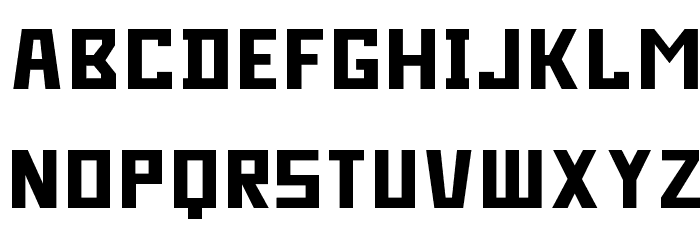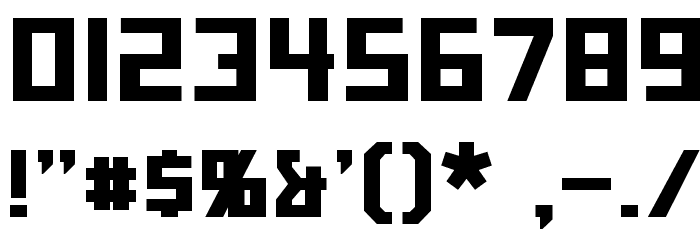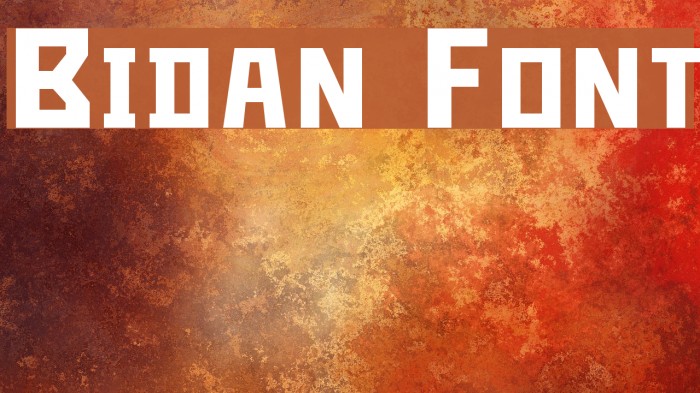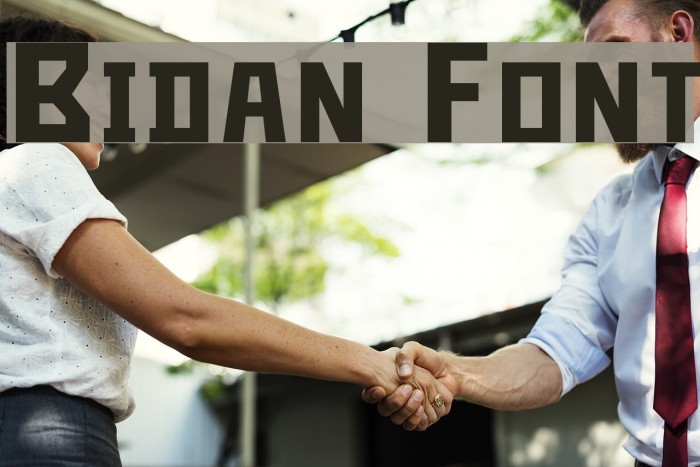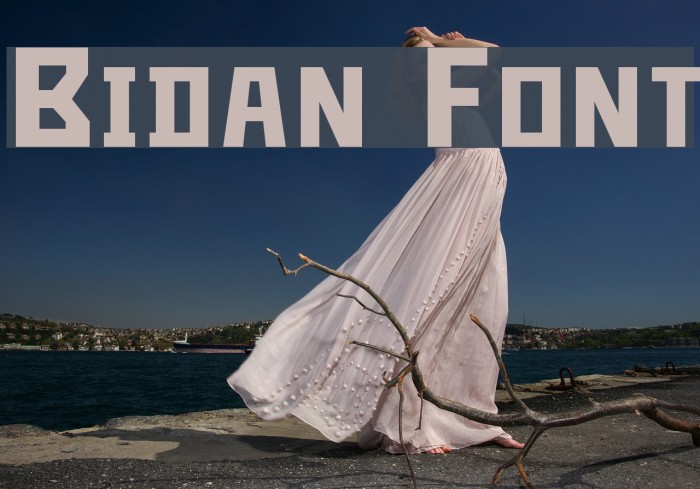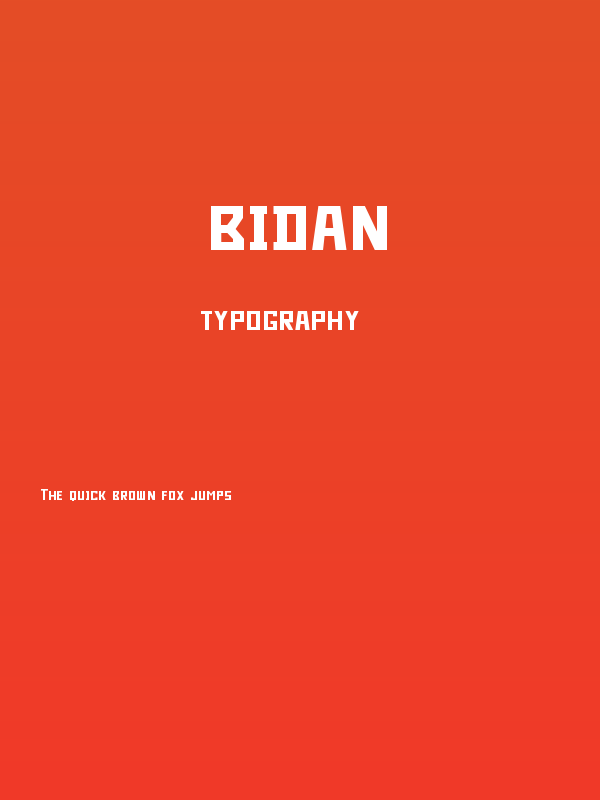
Bidan Font
This font features a bold and geometric design with strong, angular lines and a distinct blocky appearance. The characters are uniformly thick, giving it a robust and impactful presence. The uppercase and lowercase letters maintain a consistent style, enhancing readability while retaining a modern and edgy aesthetic. The numerals and special characters follow the same design principles, ensuring a cohesive look across all elements. The font's structure is ideal for making bold statements, with its high contrast and solid form making it stand out in any design.
A bold, geometric font with strong, angular lines and a blocky appearance.
- Proposed Projects: Ideal for posters, headlines, branding, and any project requiring a modern, impactful typeface.